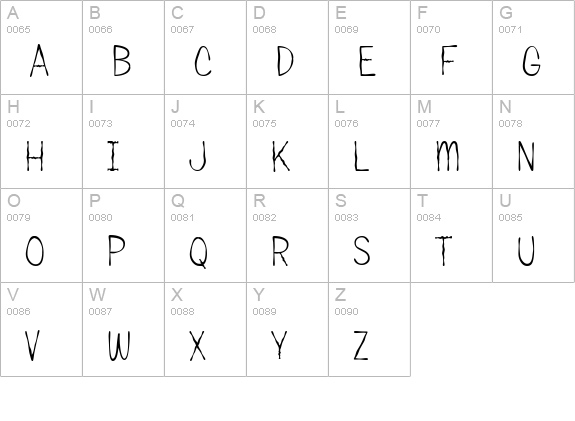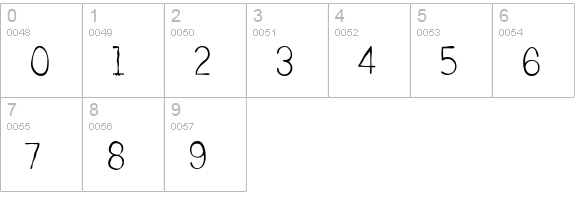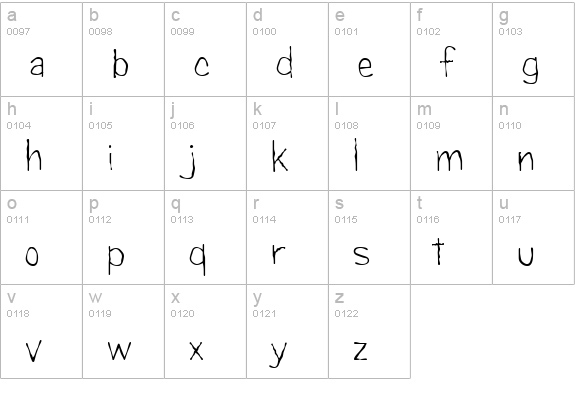
Candy Buzz BTN Lt Font Details
Candy Buzz BTN Lt is a delightful and playful font that exudes a sense of fun and whimsy. With its rounded edges and bouncy letterforms, this typeface is perfect for adding a touch of sweetness to any design project. Whether you're creating party invitations, greeting cards, or social media graphics, Candy Buzz BTN Lt is sure to bring a smile to your audience's face. The best part? This charming font is available for free download at FontsMarket.com! Simply head over to the website and start using Candy Buzz BTN Lt in your designs today. Let your creativity soar with this cheerful and eye-catching typeface that will make your projects stand out from the crowd.